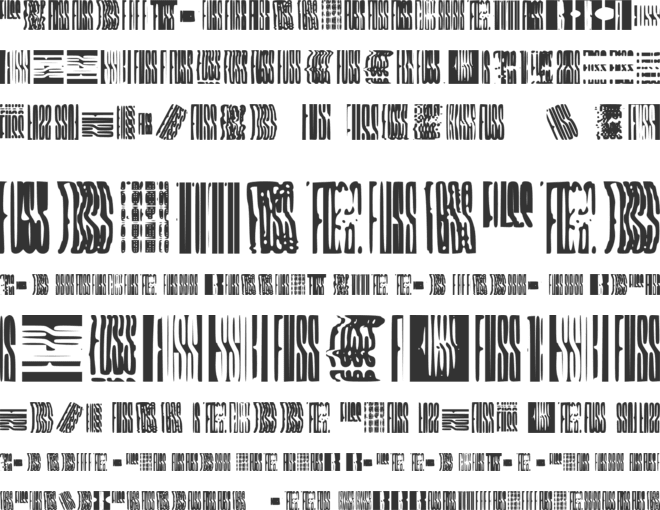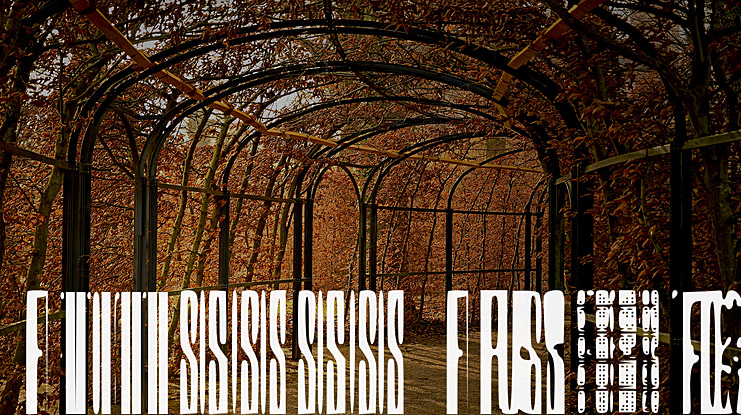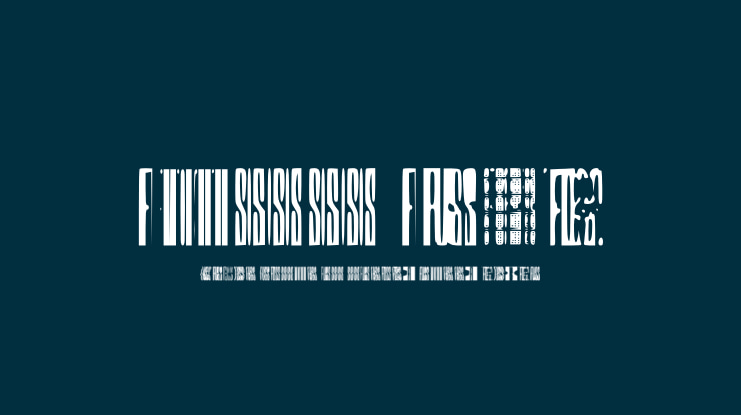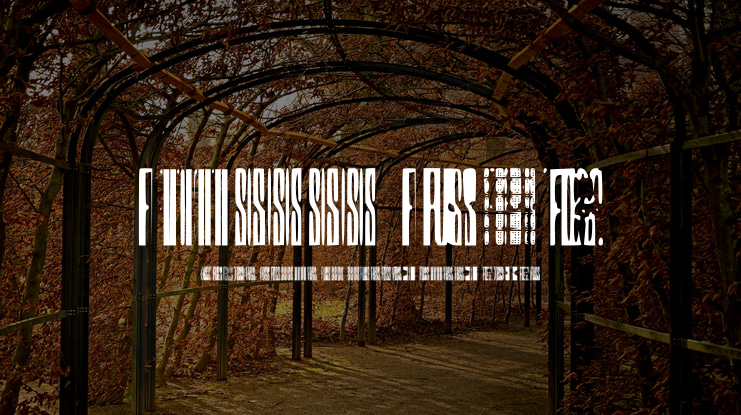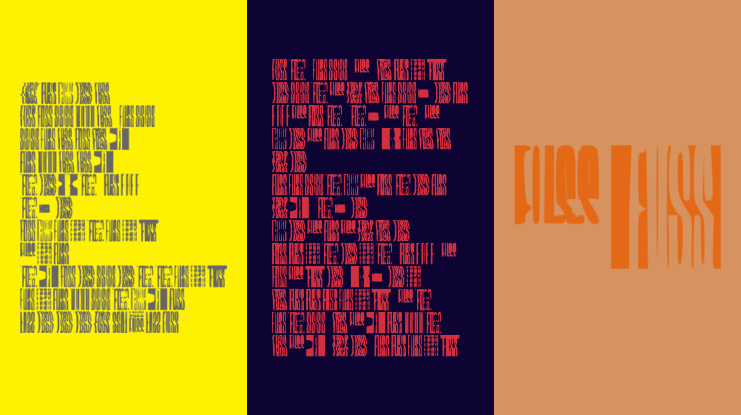
Fuss Font
Fuss Font was created out of a project set Connor Henderson via Reddit to use the Fuss logo in way we wished to promote the brand. Take the font and use it as you wish and share you designs here:https://www.reddit.com/r/Design/comments/ult55z/got_an_idea_for_my_brand_promo_and_i_need_your/?utm_source=share&utm_medium=ios_app&utm_name=iossmf
Created by Benjamin A Melville